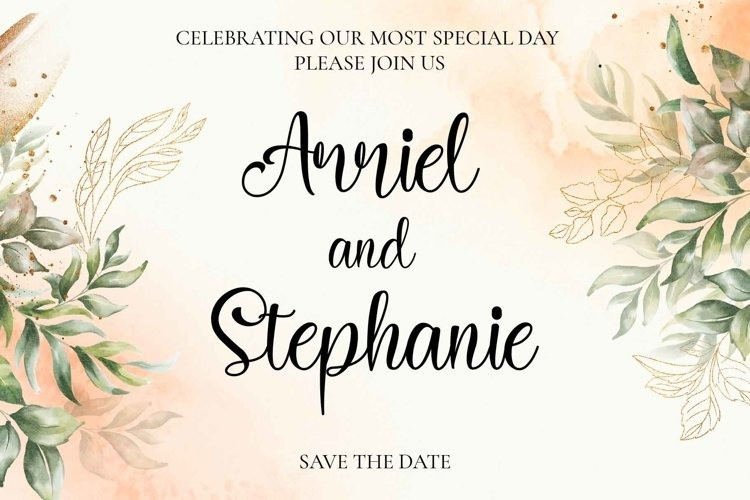
Bostya Handwritten Font
Bostya is an incredibly relaxed and timeless handwritten font. It looks stunning on wedding invitations, thank you cards, quotes, greeting cards, logos, business cards, and every other design which needs a handwritten touch. Fonts are provided in TTF & OTF formats.